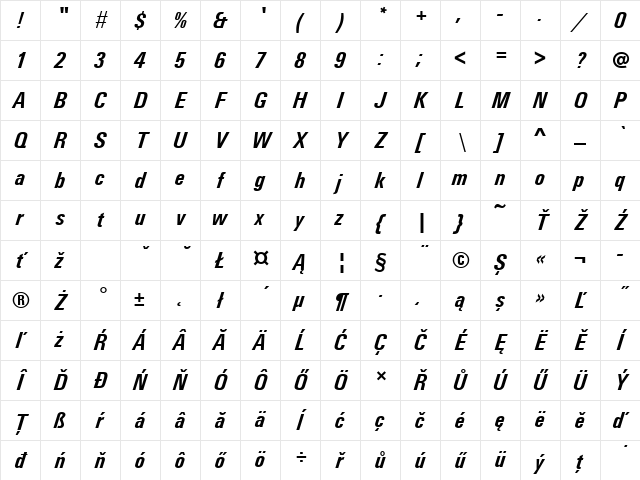
UnitusTEECon Bold Italic
UnitusTEECon Family
Complete UnitusTEECon Bold Italic glyph index. Displaying only characters natively supported by UnitusTEECon Bold Italic font.
Design Context for UnitusTEECon
UnitusTEECon is a composed and adaptable typeface that performs quietly and consistently across a wide range of design contexts. The slanted form adds forward momentum and visual energy. Its bold stroke weight gives it real presence on the page.